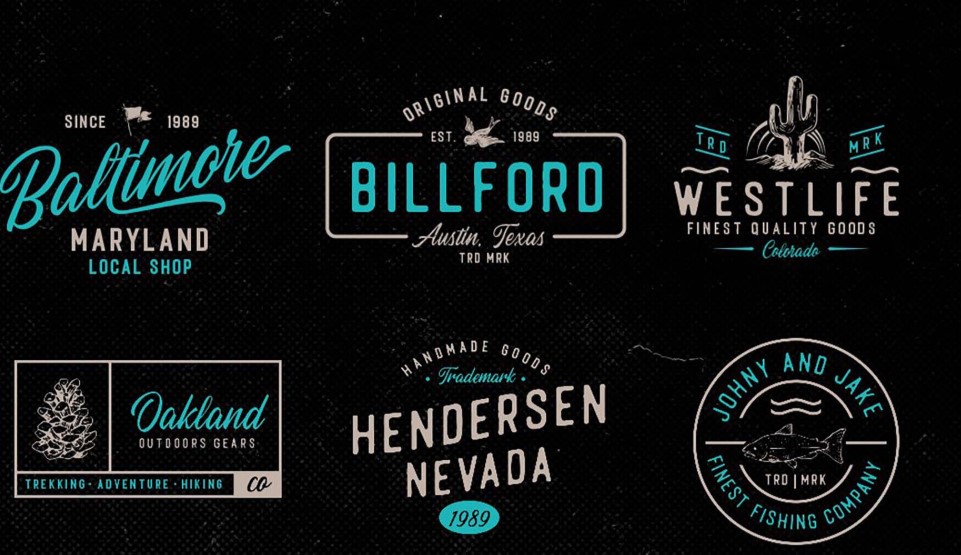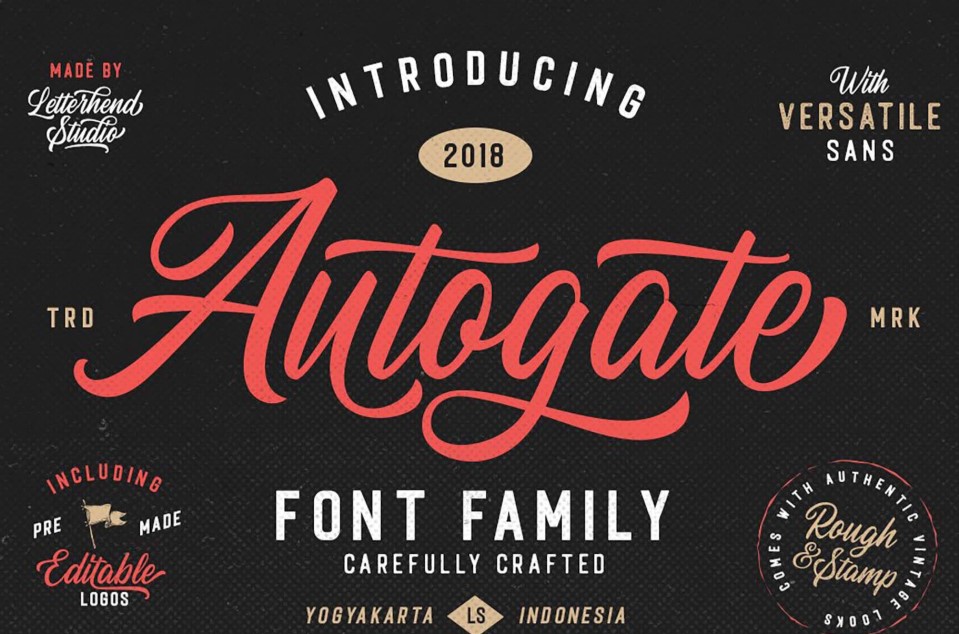
Autogate Script Font
Autogate Script Font falls into the class of the old script fonts. This is one of the most stylish typefaces of all time. This is similar to the peace script font. Those are hand-drawn fonts that in fact supply off an actual private contact in your duties.
It’s also one of the most used fonts within the google fonts. This font is likewise used within the poster particularly sports or something that dreams the hand-drawn taste. Thank you, very load to the studio, this demo font is for non-public use pinnacle-notch! Autogate Script Font Free However, any donation may be very favored.
It’s far just like the better together script. Upload it in your fonts series and supply an actual private contact in your responsibilities. It‚Äôs an exquisite typeface designed via the studio. Test it out!